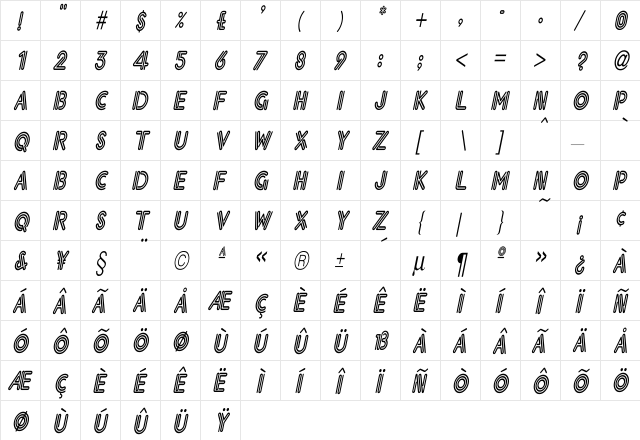
Eklektic-Normal Cn IT Italic
Design Context for Eklektic-Normal Cn IT Typeface
Eklektic-Normal Cn IT is a composed and adaptable typeface that performs quietly and consistently across a wide range of design contexts. The slanted form adds forward momentum and visual energy.
Pro Tip: Try Eklektic-Normal Cn IT for annotation and caption copy alongside an upright companion — the contrast in angle creates a dynamic but ordered typographic system.